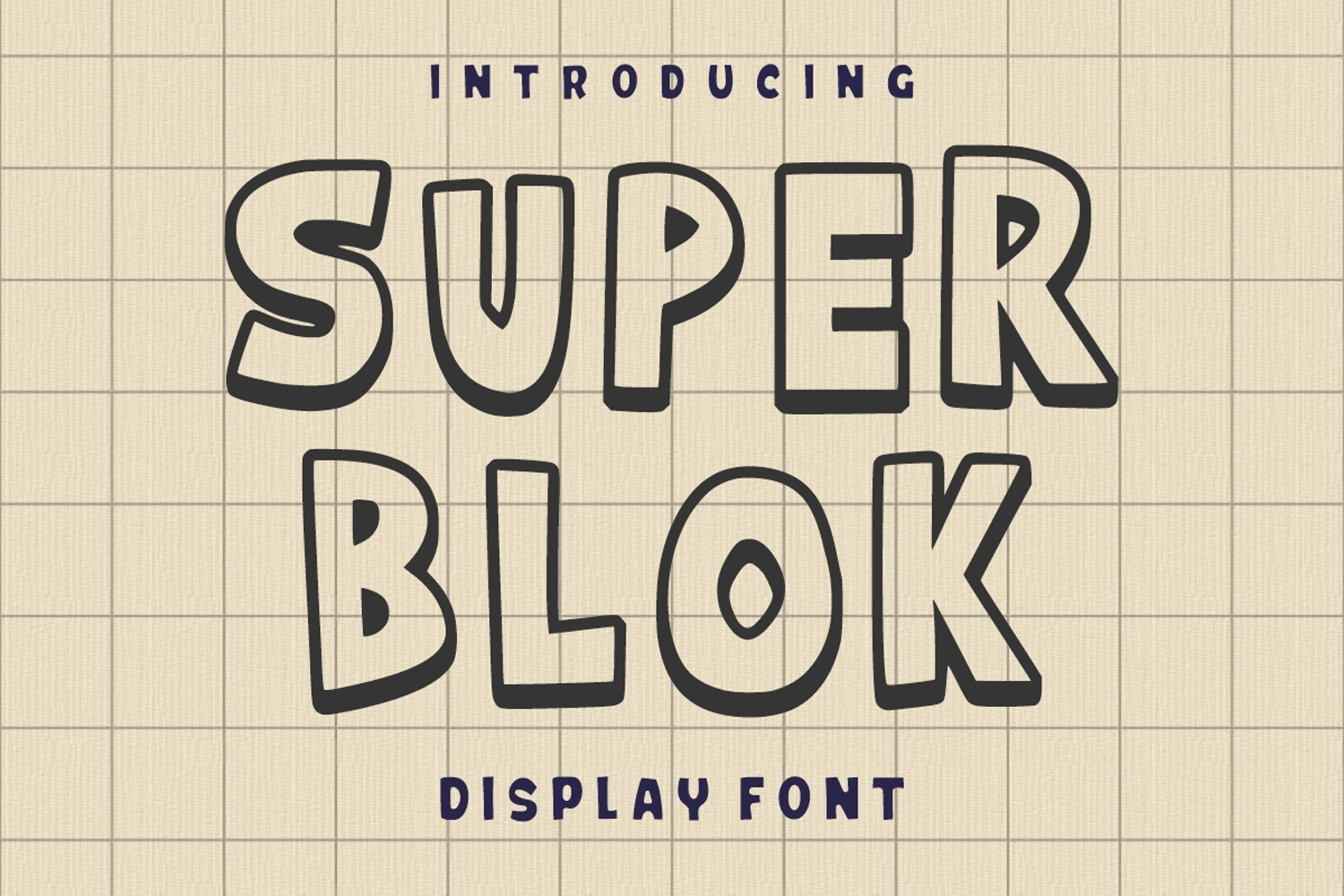
Super Blok
SuperBlok
Super Blok is a fun and bold display font featuring chunky block-style letterforms with a playful, hand-drawn feel. Its friendly and eye-catching design makes it perfect for posters, kids’ designs, branding, packaging, headlines, and creative projects that need a strong yet cheerful personality. Ideal for retro, modern, and casual typography styles.
Super Blok